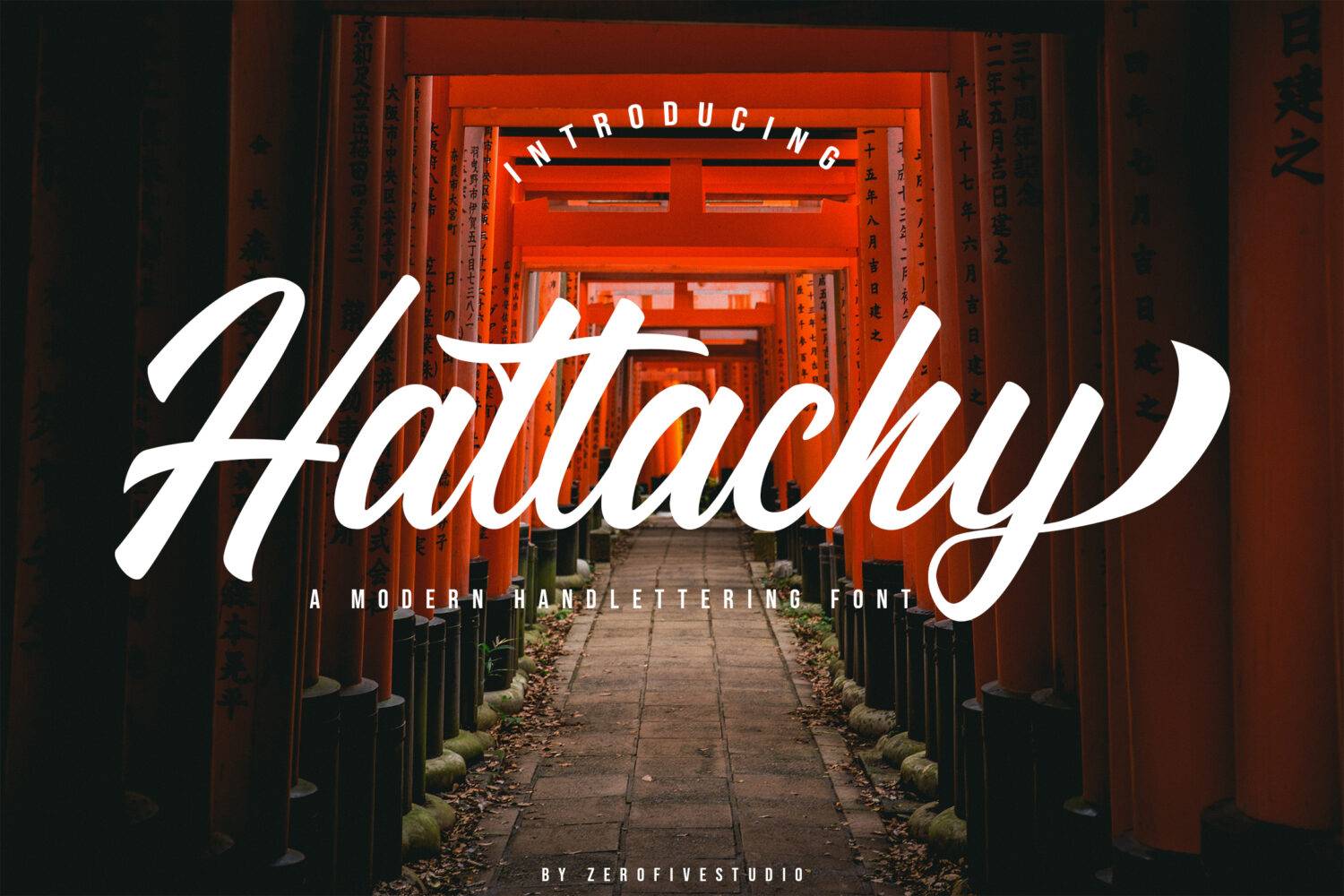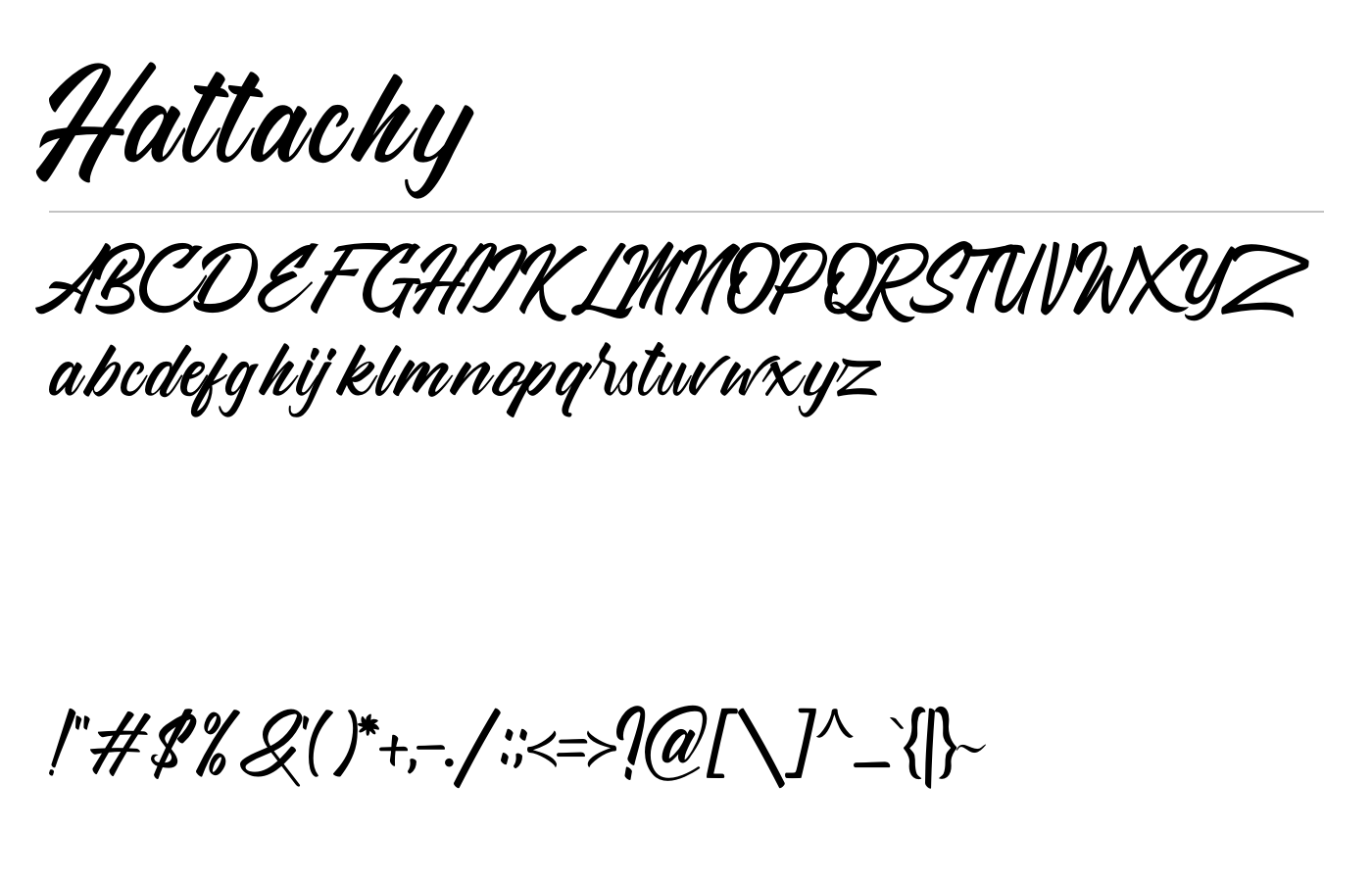
Hattachy is a lively and elegant script font with a smooth, flowing style that evokes a personal handwritten feel. Its medium weight and slightly condensed letterforms make it great for adding a friendly yet refined touch, ideal for logos, invitations, and branding that seeks a modern but approachable vibe. The font’s cursive nature and expressive strokes work best in headlines or decorative uses where warmth and personality are desired.
Hattachy Font
About Hattachy Font
| Font family | Hattachy Font |
| Designer | zerofivestudio |